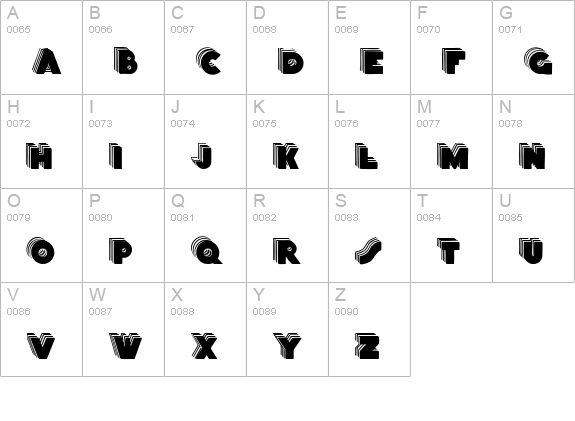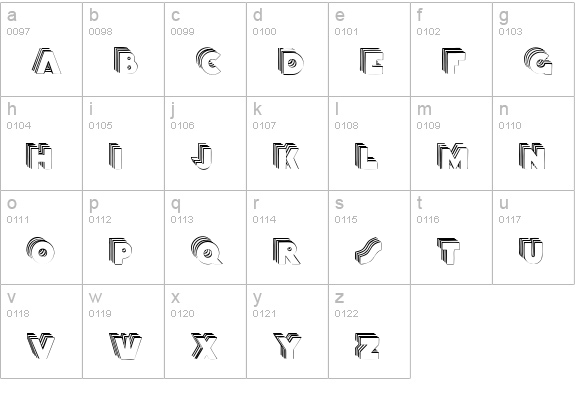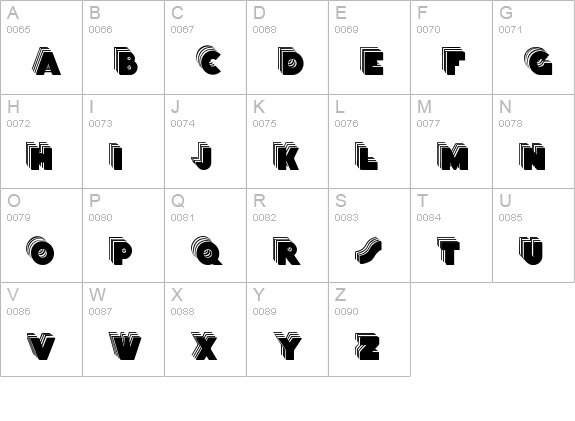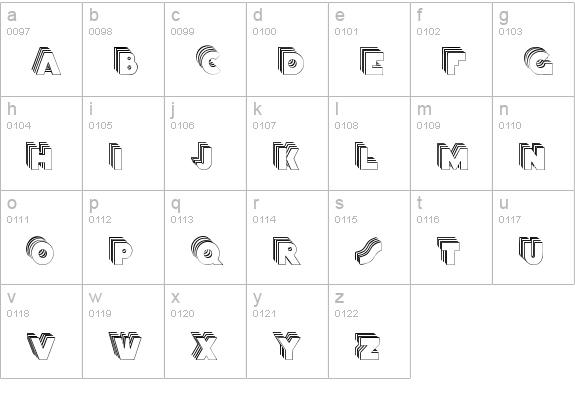
Stackcaps Font Details
Introducing Stackcaps, a stunningly versatile font that is the epitome of modern sophistication. Crafted with precision and attention to detail, this font exudes a sense of elegance and professionalism. With its clean lines and sleek curves, Stackcaps is perfect for a wide range of design projects, from logos and branding to website headers and posters. But what sets Stackcaps apart from other fonts is its unique ability to seamlessly blend classic and contemporary elements. It strikes the perfect balance between tradition and innovation, making it suitable for both timeless and cutting-edge designs. Stackcaps is not just visually appealing, but also highly functional. Its carefully crafted letterforms ensure legibility, even at small sizes, making it ideal for body text as well. And with a wide range of weights and styles, this font offers endless possibilities for creative exploration. But perhaps the best part is that Stackcaps is completely free! Yes, you read that right. This exceptional font can be freely downloaded at FontsMarket.com, allowing you to elevate your designs without breaking the bank. So why wait? Discover the beauty and versatility of Stackcaps today and take your design projects to new heights.